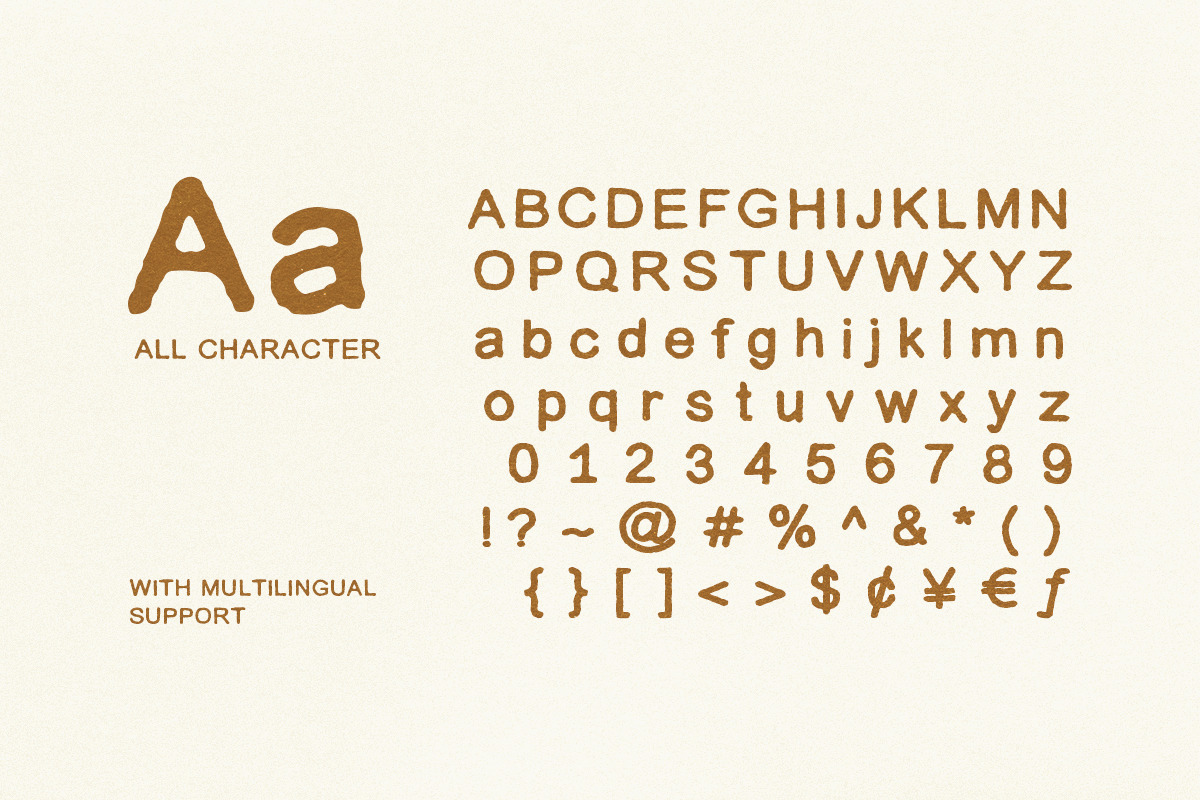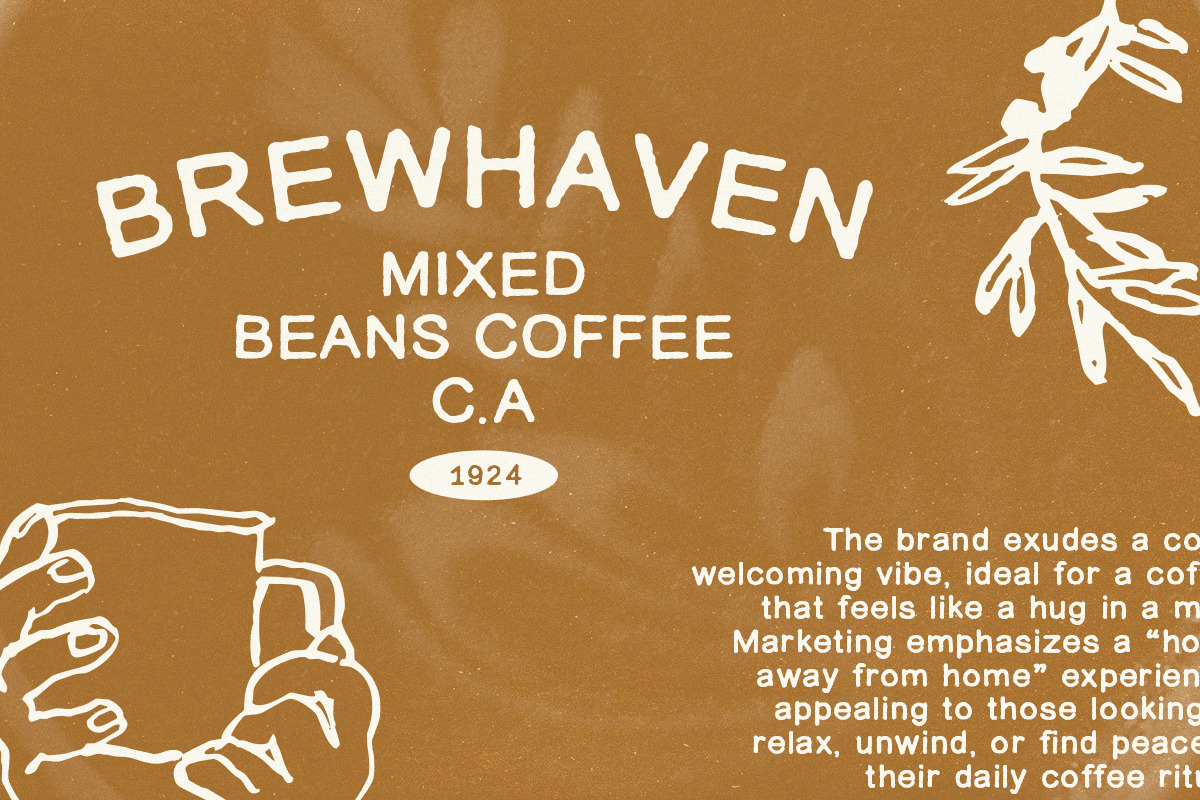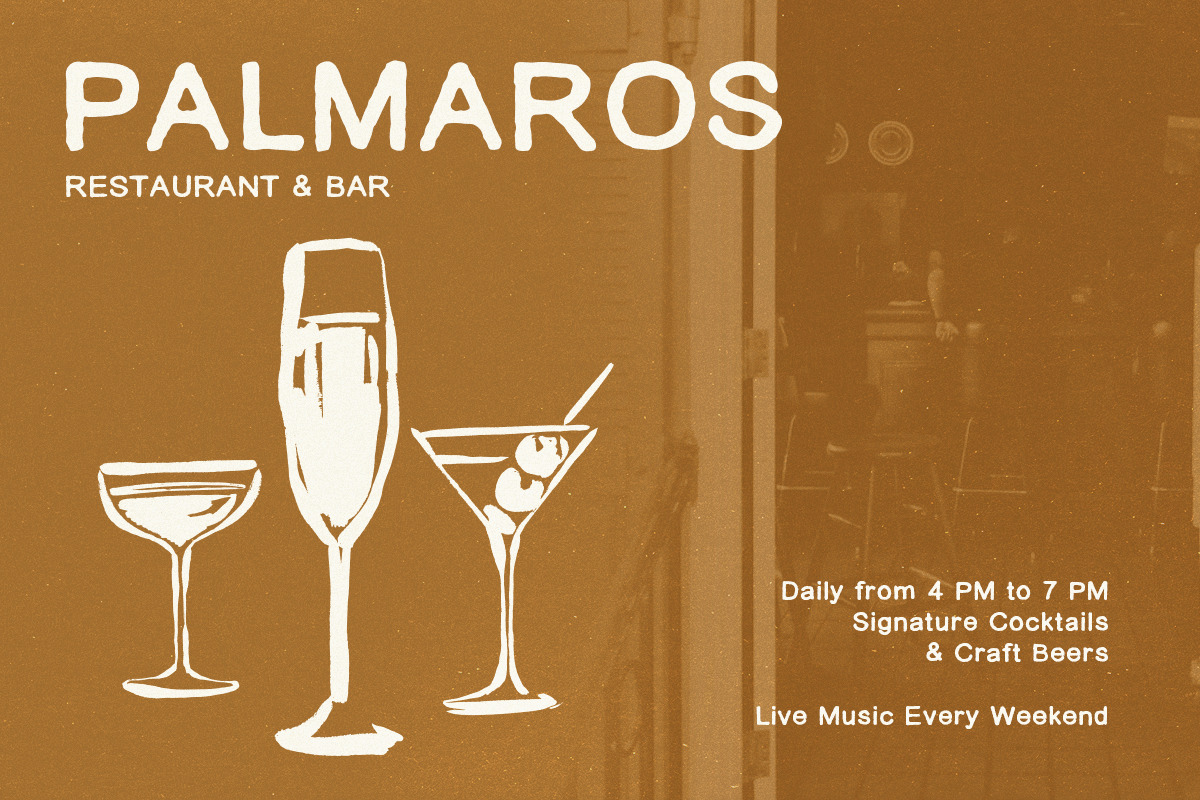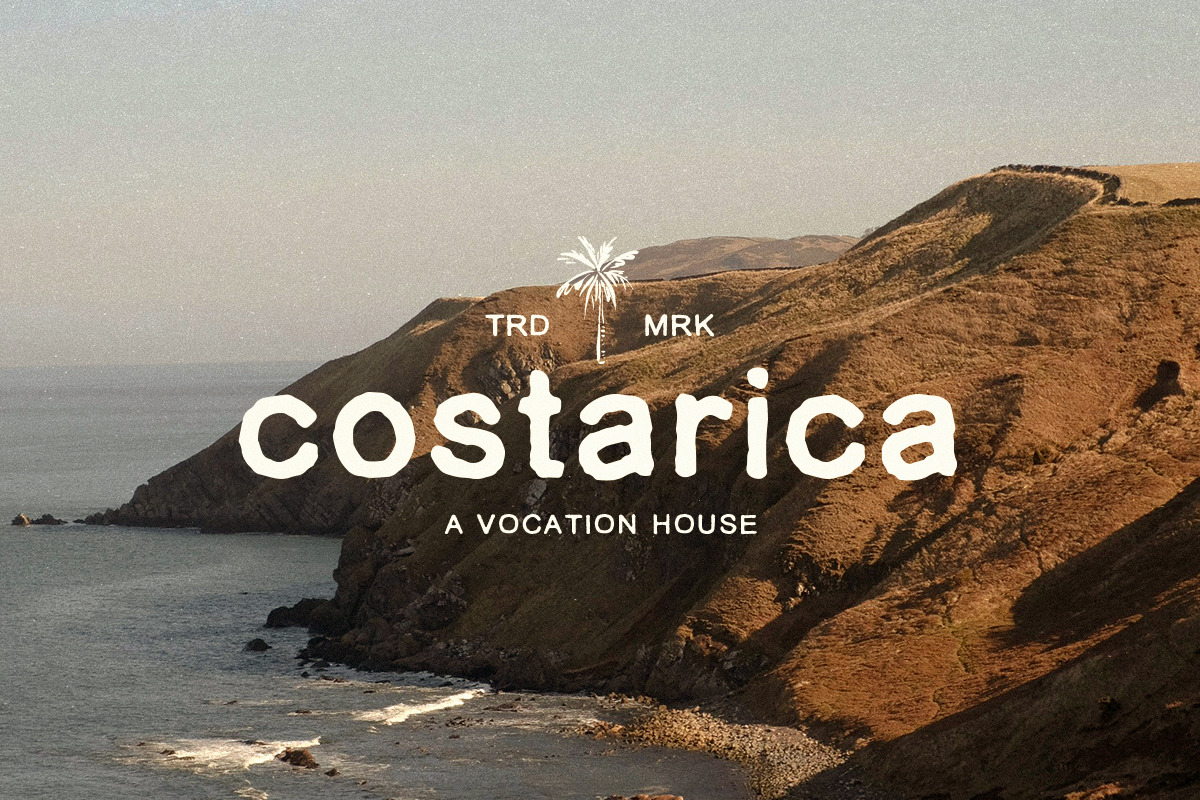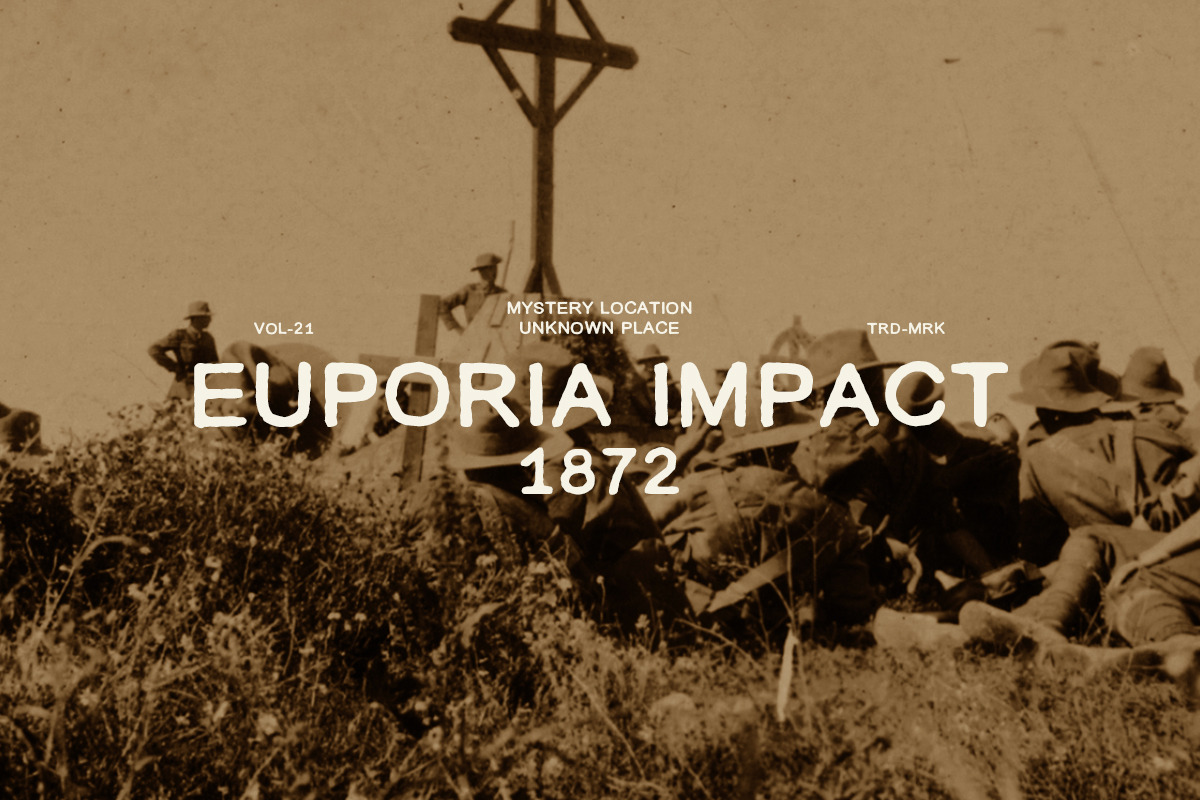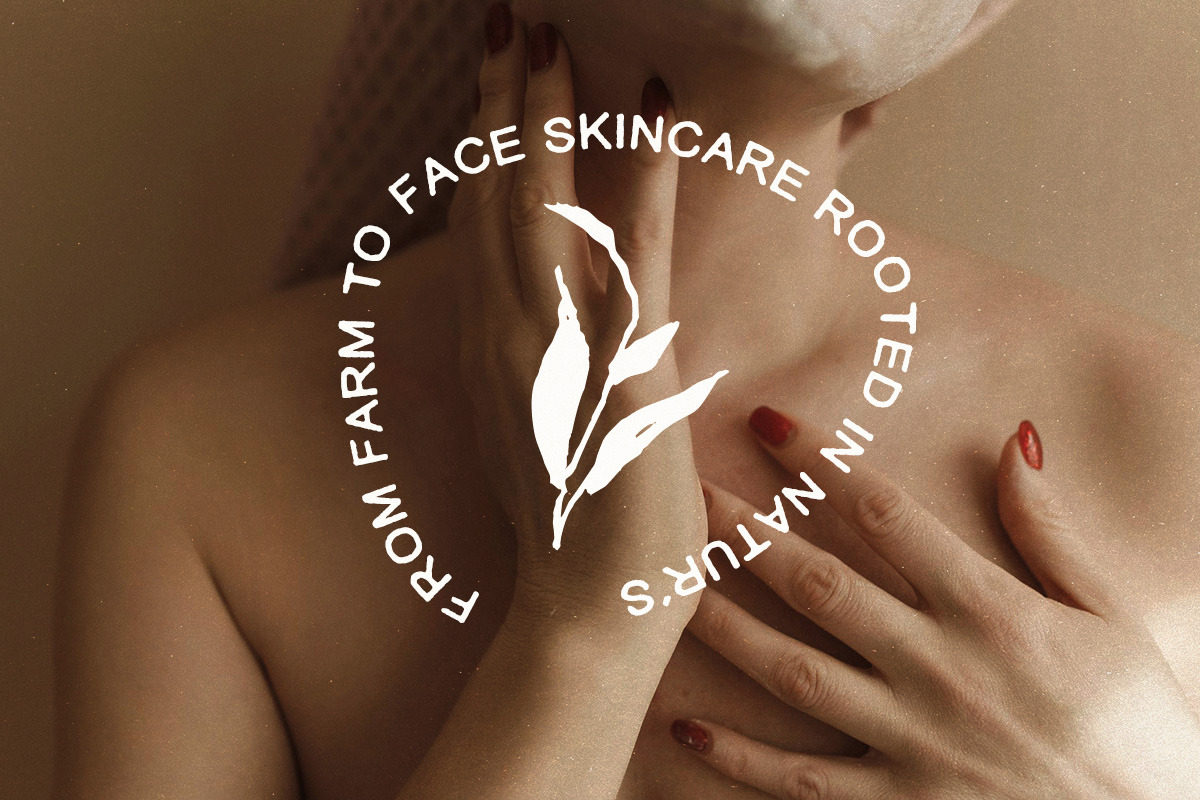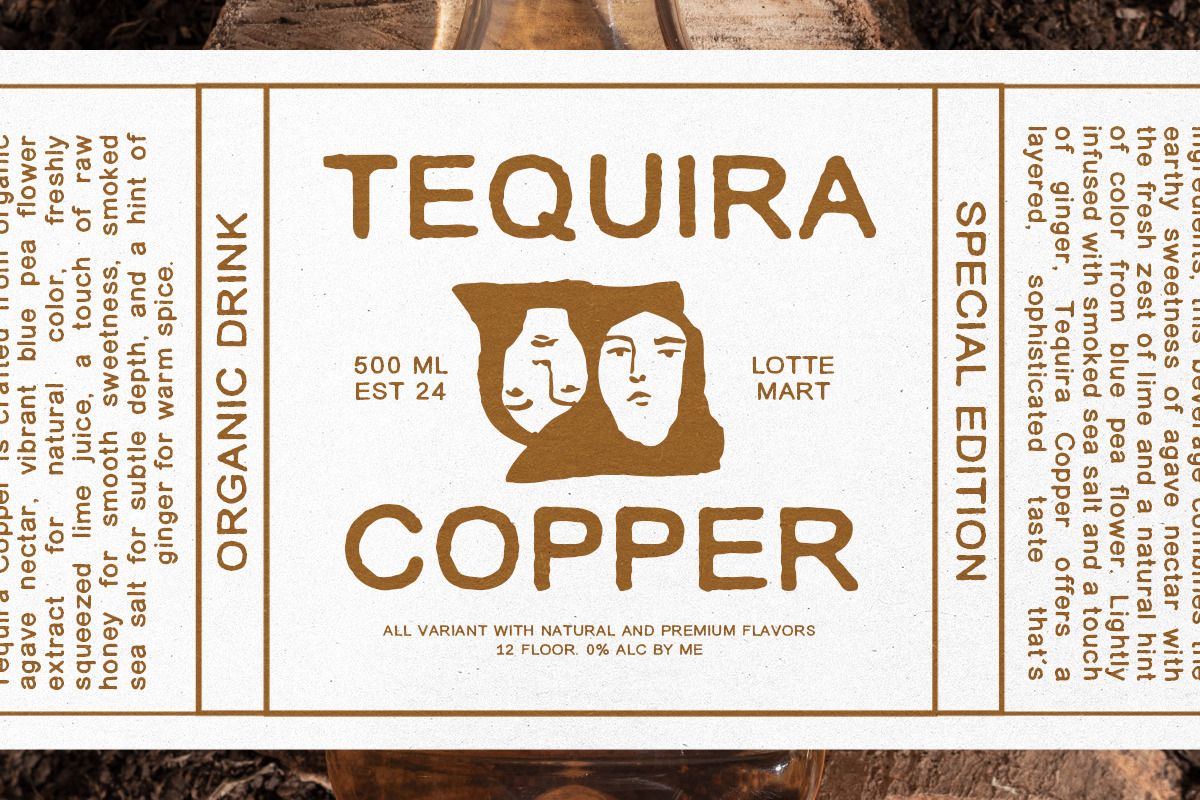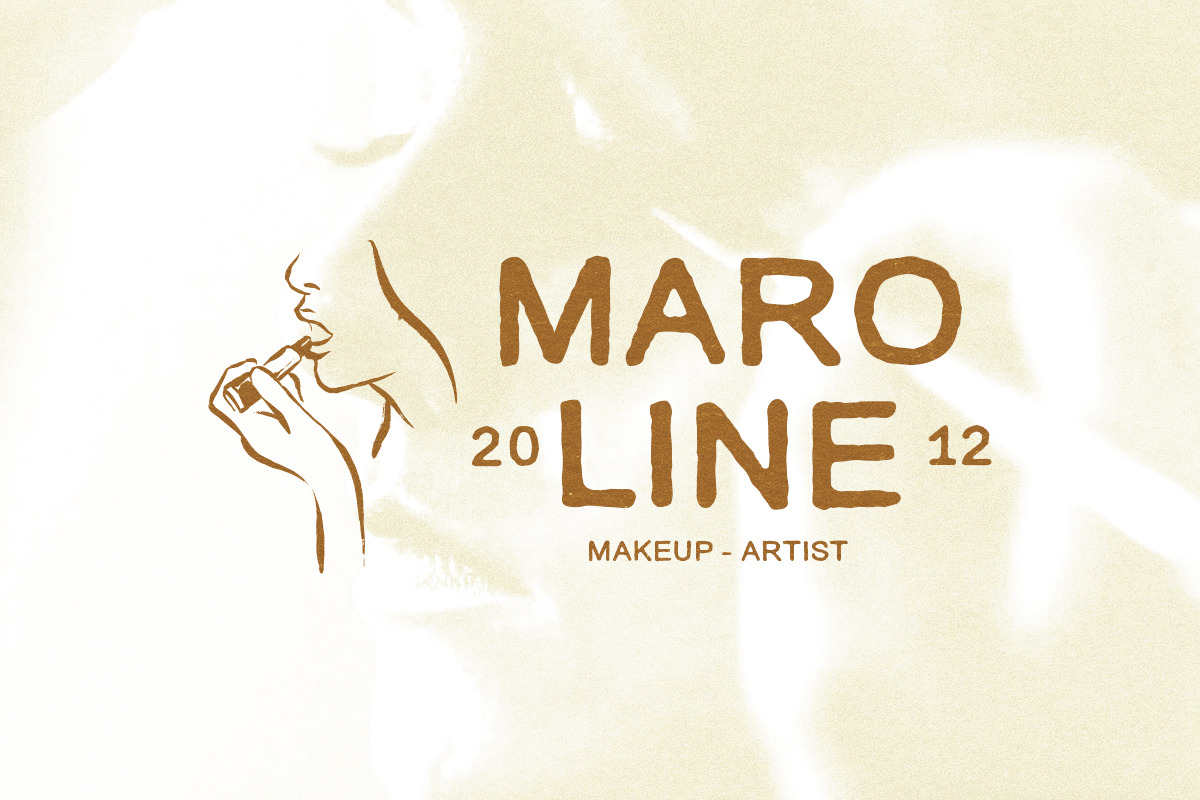
pinefolk - organic sans
Pinefolk is an organic handwritten font with beautifully textured shapes, enhancing its naturally rustic charm. Inspired by the raw, earthy aesthetics of nature, Pinefolk brings warmth and authenticity to any design. Its organic texture makes it ideal for projects with an earthy, nature-inspired theme, perfect for branding, logos, packaging, and more that call for a handcrafted feel. What you will get :